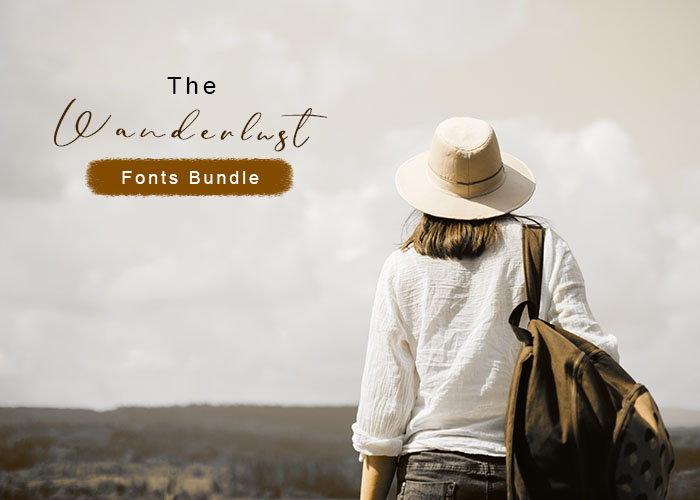
The Wanderlust Font Bundle!
Gone are the days when designs would be created in boring, drab fonts. Modern designs command contemporary fonts. Unfortunately, they are hard to find. As a result, designers are compelled to go with outdated, uninteresting fonts.
Well, not anymore! The Wanderlust Fonts Bundle has some of the most exciting fonts ever seen. Heart of Stone font, for example, is a novel introduction. Candy man is another exciting, sweet new font. Then there is the charming Cinthia script font.
Crimson Thunder is a thunderous modern font you will find hard to resist. Then there is the well-strung Hardwired modern script font. Laser is a rapturous font with an enigmatic appeal. Blitz is another new handmade font.
As you can surmise, this bundle has many exciting fonts. Choosing one over the others can be tough. A lot will depend on your intended purpose.